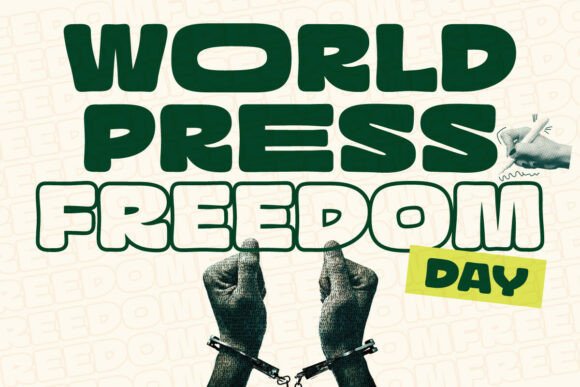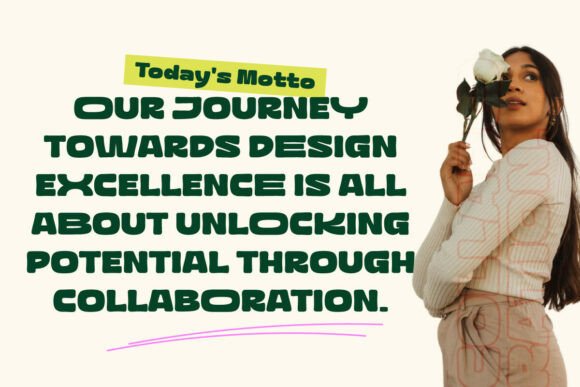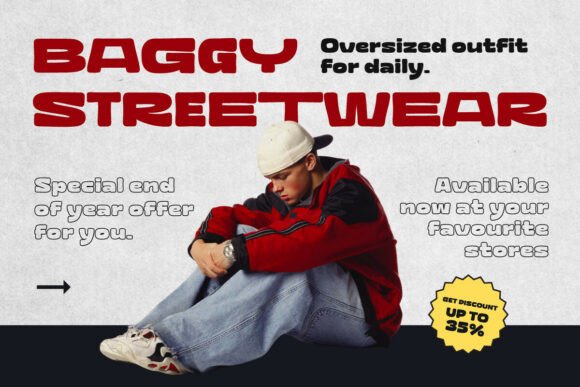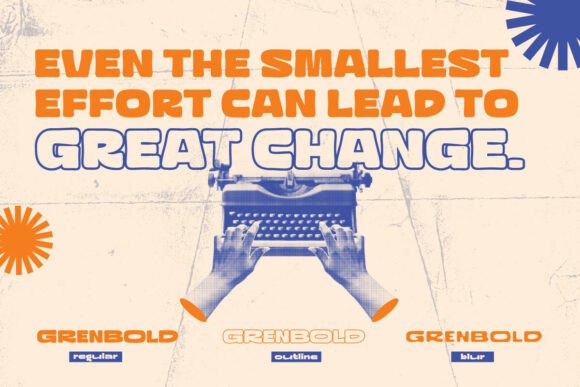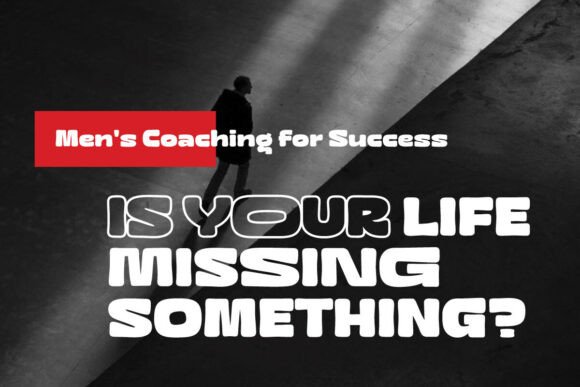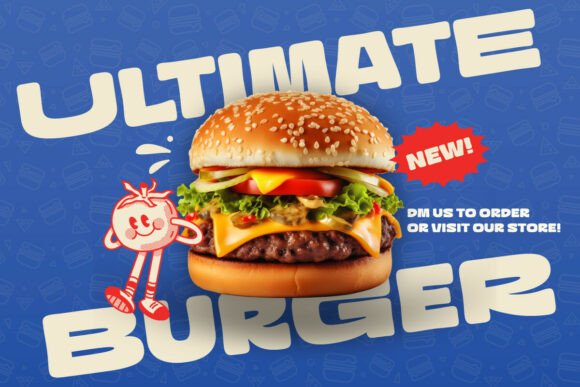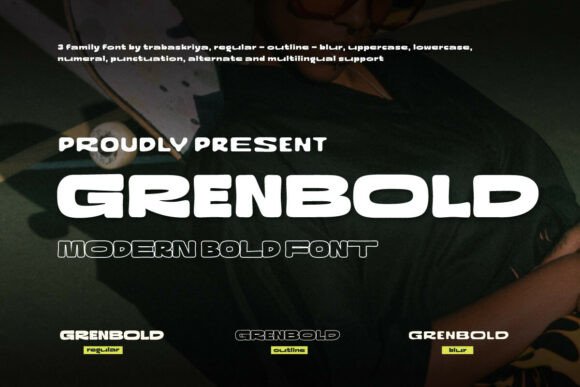
Introducing Grenbold: The Modern Bold Display Font for Designers
In the world of typography, a good font can make all the difference in a design project’s success. For designers and crafters looking for a bold and modern display font, Grenbold is an excellent choice. This contemporary font is designed to radiate strength and style, making it perfect for projects that demand boldness and clarity.
The Characteristics of Grenbold
Grenbold is a modern bold display font characterized by its thick strokes and smooth curves. These features come together to create a confident character that brings a sense of power and modern aesthetics to every design. The font’s boldness makes it highly readable, even at larger sizes, ensuring that your text doesn’t just sit on the page – it commands attention and leaves a lasting impression.
One of the standout features of Grenbold is its versatility. This font works beautifully in a variety of design applications, including logos, posters, headlines, product packaging, and digital branding. Whether you’re working on a print project or a digital campaign, Grenbold is up to the task. Its ability to adapt to different design needs makes it a valuable addition to any designer’s toolkit.
The Grenbold Font Family
The Grenbold font family is thoughtfully crafted to offer designers a range of creative options. It comes with three distinct styles: Regular, Outline, and Blur. This variety gives designers the freedom to play with contrasts and layering effects, allowing for maximum impact in their designs.
• Regular: The standard version of Grenbold, perfect for bold statements.
• Outline: A detailed outline version, great for adding depth and contrast.
• Blur: A softly blurred version, ideal for creating a sense of movement or focus.
Design Possibilities with Grenbold
The possibilities with Grenbold are endless. Designers can use the Regular style for primary text, then experiment with the Outline and Blur styles for added effects. This layering capability allows for dynamic visuals that capture audiences’ attention. For instance, combining the boldness of the Regular style with the subtlety of the Outline or Blur styles can create stunning visual hierarchies.
Why Choose Grenbold?
There are several reasons why Grenbold stands out as a go-to font for designers:
• Uniqueness: Grenbold’s distinctive style sets it apart from more traditional fonts.
• Legibility: Despite its boldness, Grenbold remains highly legible across various sizes and applications.
• Flexibility: With its range of styles, Grenbold can be used across multiple projects and mediums.
• Impact: It’s designed to make a statement, ensuring your designs are noticed.
Applications of Grenbold
Grenbold’s adaptability makes it suitable for a wide range of applications:
• Logos: Create memorable brand logos that exude confidence and strength.
• Posters: Design eye-catching posters that demand attention.
• Headlines: Make your article or website headlines stand out.
• Product Packaging: Elevate your product packaging with a modern and bold aesthetic.
• Digital Branding: Enhance your digital presence with a font that embodies modern style.
Grenbold is more than just a font – it’s a design statement. With its modern boldness, versatility, and range of styles, it’s an excellent choice for designers looking to make an impact. Whether you’re crafting a brand identity, designing marketing materials, or simply looking for a font that commands attention, Grenbold is sure to deliver. Its unique blend of strength, style, and readability makes it a valuable asset in any designer’s toolkit. So, if you’re ready to elevate your designs and make a lasting impression, Grenbold is the perfect choice.